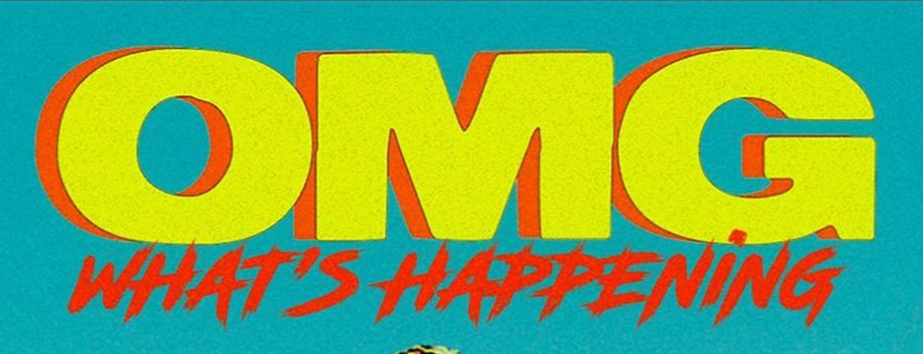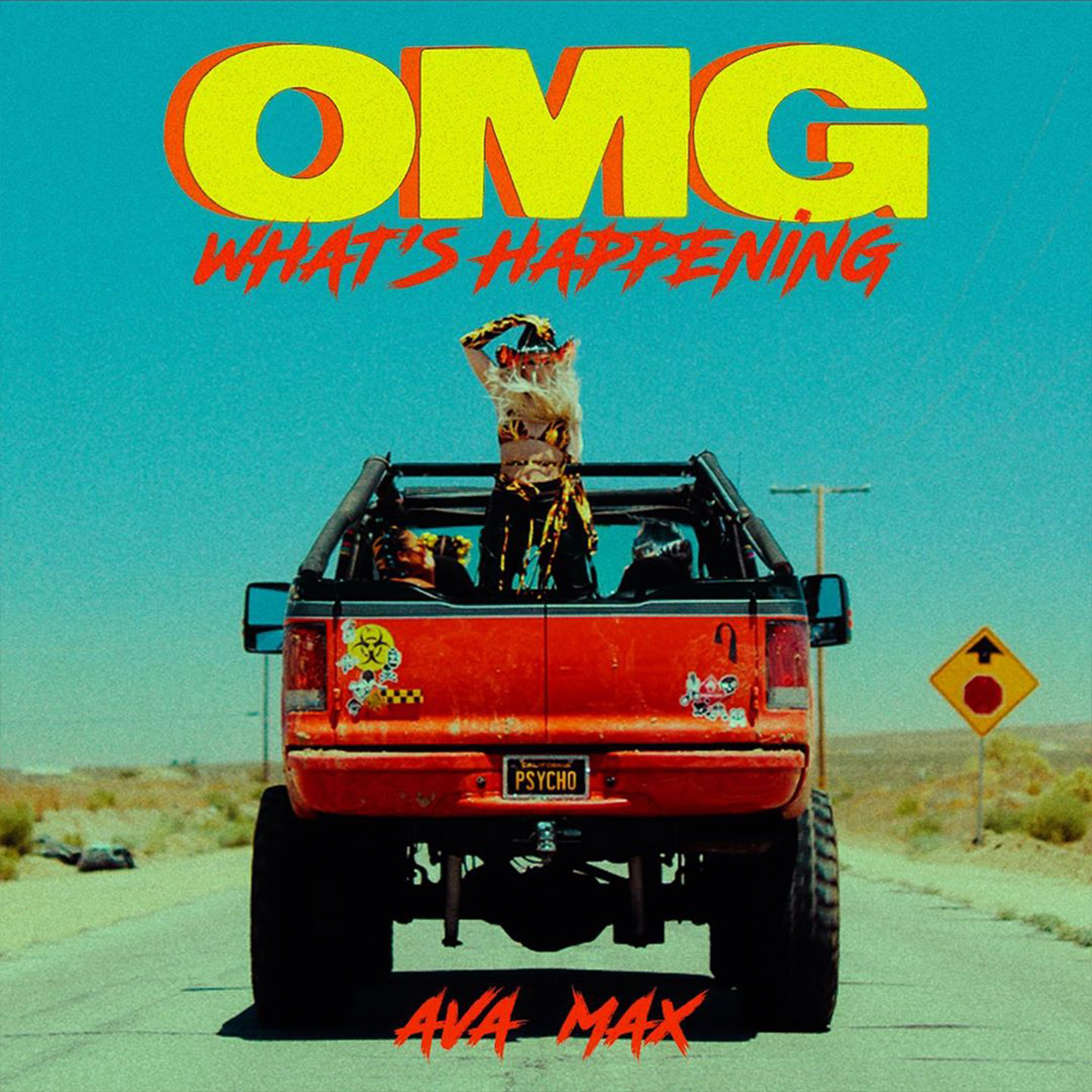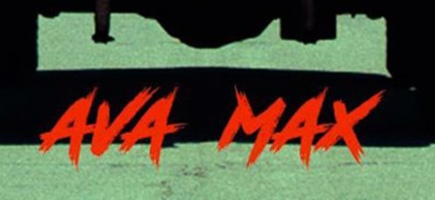
Can somebody help me identifying also these 2 fonts used on Ava's single OMG please? I've been trying on my own but I can't decently isolate the characters so the search engine returns wrong results. Thanks a lot in advance
AVA MAX is set in Road Rage (free for personal use only)
OMG looks like a roughed up version of Nimbus Sans Black Extended/Helvetica Neue Black Extended
EDIT: Reservoir Grunge for OMG (the roughed up version already exists)